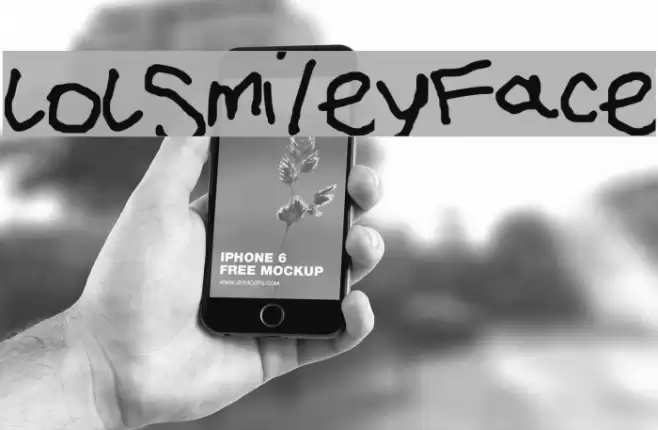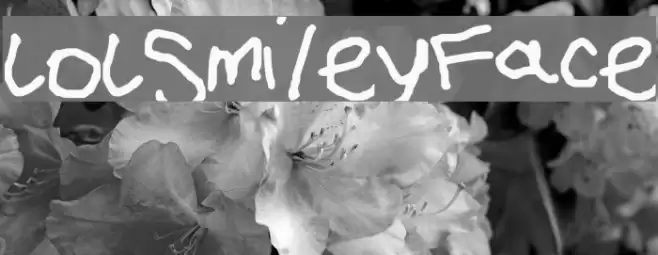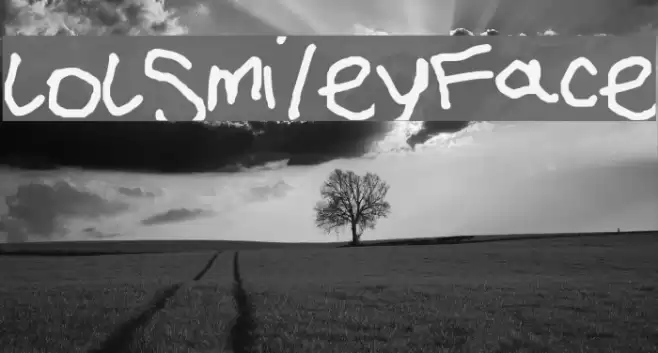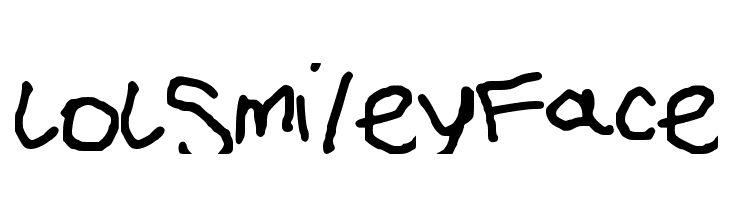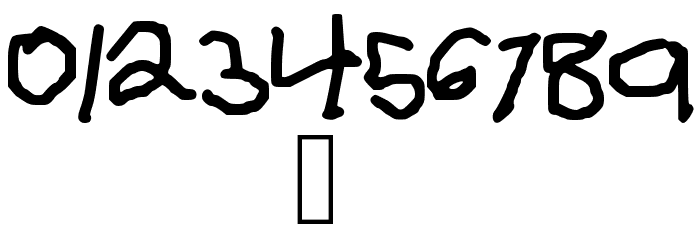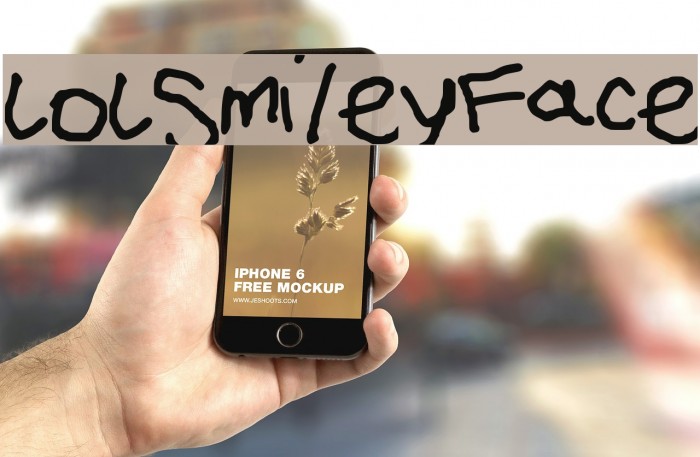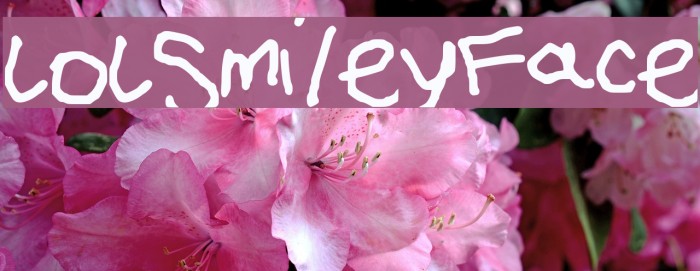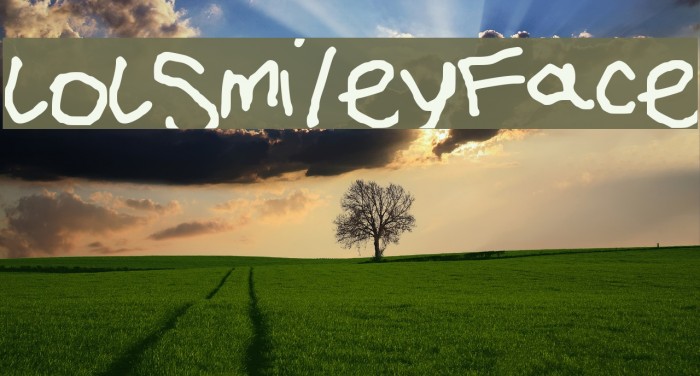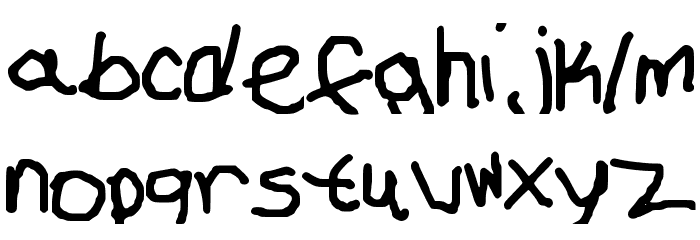
LoLSmileyFace Font
LoLSmileyFace Description
This font exhibits a playful and informal handwritten style, characterized by its uneven strokes and whimsical appearance. The letters are bold and have a slightly irregular form, giving them a casual and approachable feel. The uppercase and lowercase letters maintain a consistent style, with some letters featuring unique flourishes, such as the spiral in the letter 'G'. The numbers and special characters follow the same playful design, making this font suitable for creative and informal projects.
A playful, informal handwritten font with bold, uneven strokes from Uncategorized fonts.
- Proposed Projects: Ideal for children's books, greeting cards, playful branding, and casual invitations.
- Overall Style: Playful
- Use Case: Headlines, Logos, Informal Text